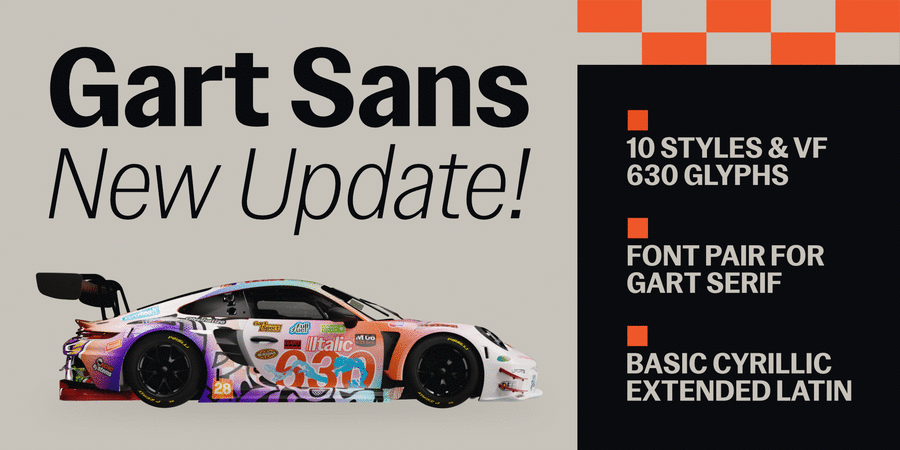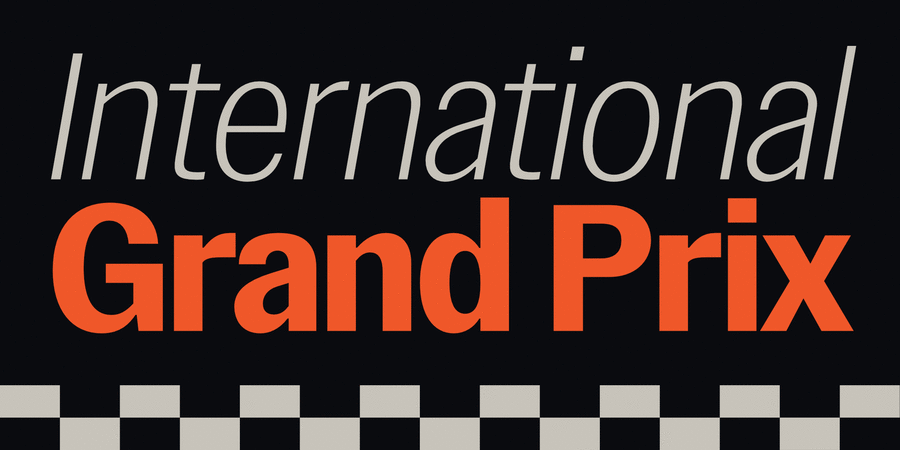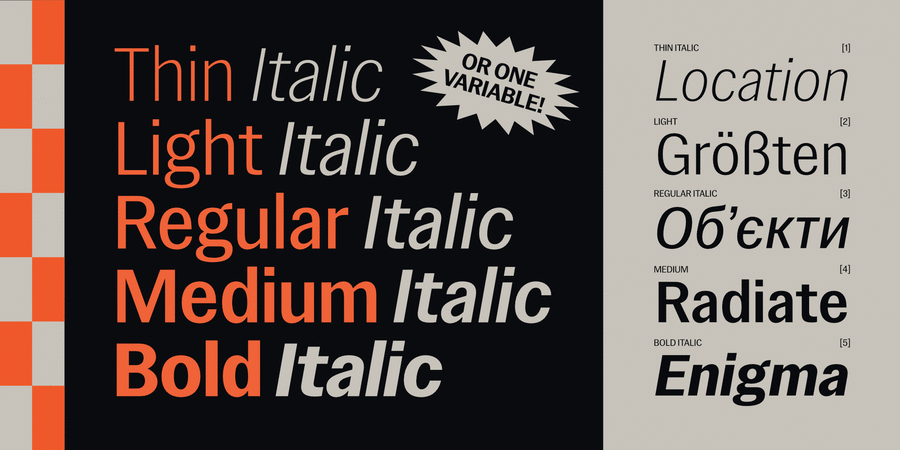
Gart Sans is a typeface that retains the characteristics of early 20th-century grotesques, which were primarily used in advertising. The main features of this font are its distinct contrast, narrow proportions, and smooth, flowing shapes combined with modern design solutions. Gart Sans is an ideal font pair for Gart Serif.
Compared to geometric or neo-grotesques, Gart Sans stands out with its unique details. Its narrow proportions offer flexibility across different contexts, while its subtle contrast adds expressiveness to the text, becoming more pronounced with increasing weight. This font is ideal for both headlines and setting large amounts of text. In addition to static styles, Gart Sans also includes a variable font, expanding its usage possibilities. Gart Sans consists of 10 styles, 630 glyphs, an italic of 10°, and includes an extended set of Latin, basic Cyrillic, ligatures, numeral sets, and much more. The update includes a 10° italic for each style, making the typeface more dynamic; general contours and kerning have also been improved. This typeface was designed by Vitalii Hotsaniuk in 2023 and updated in 2024. The quick brown fox jumps over the lazy dog